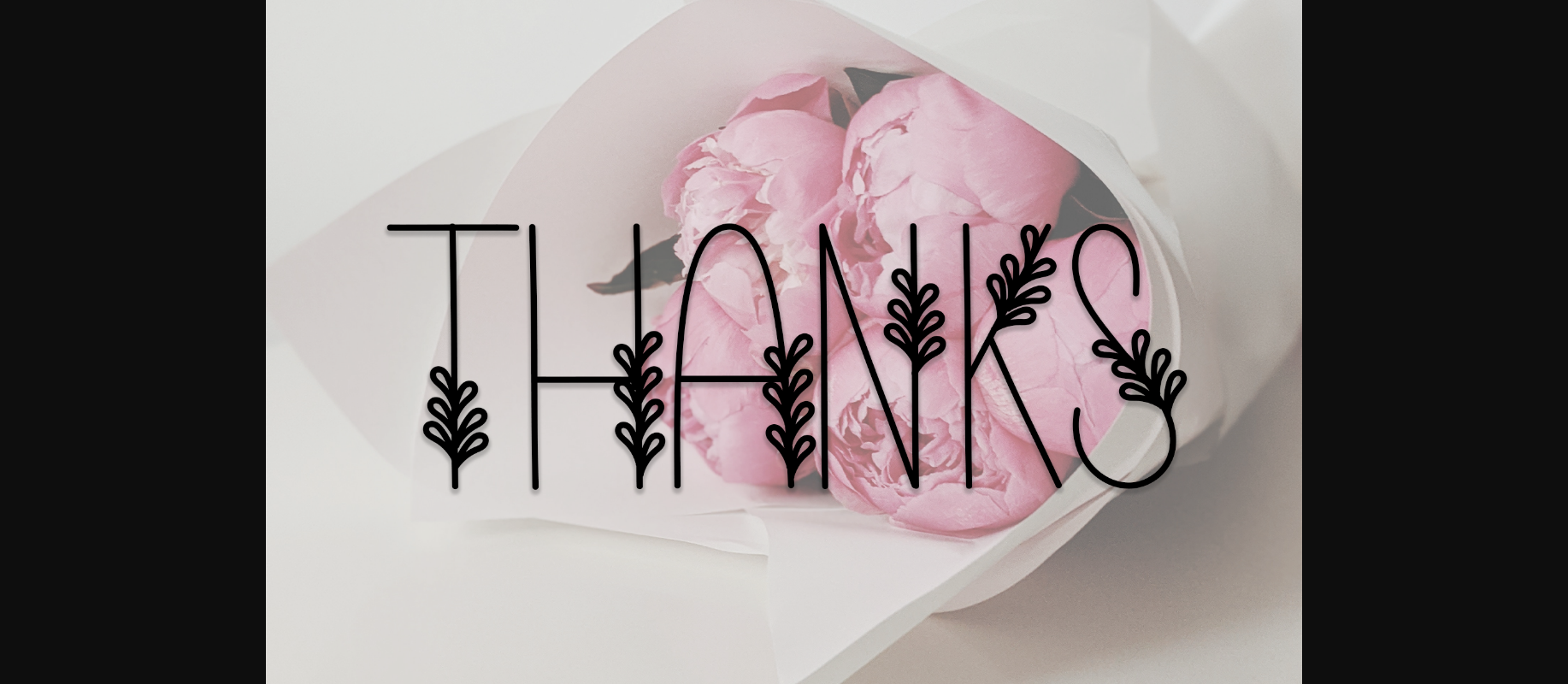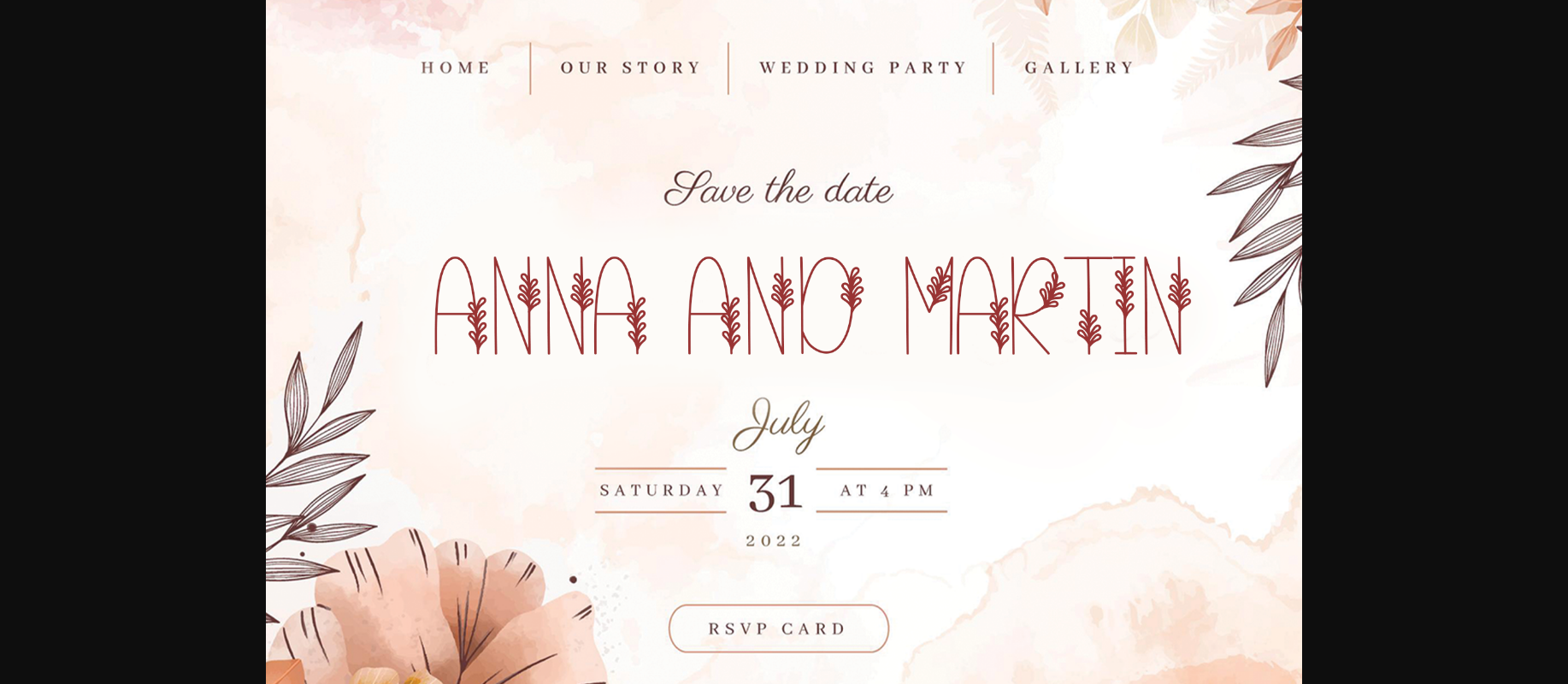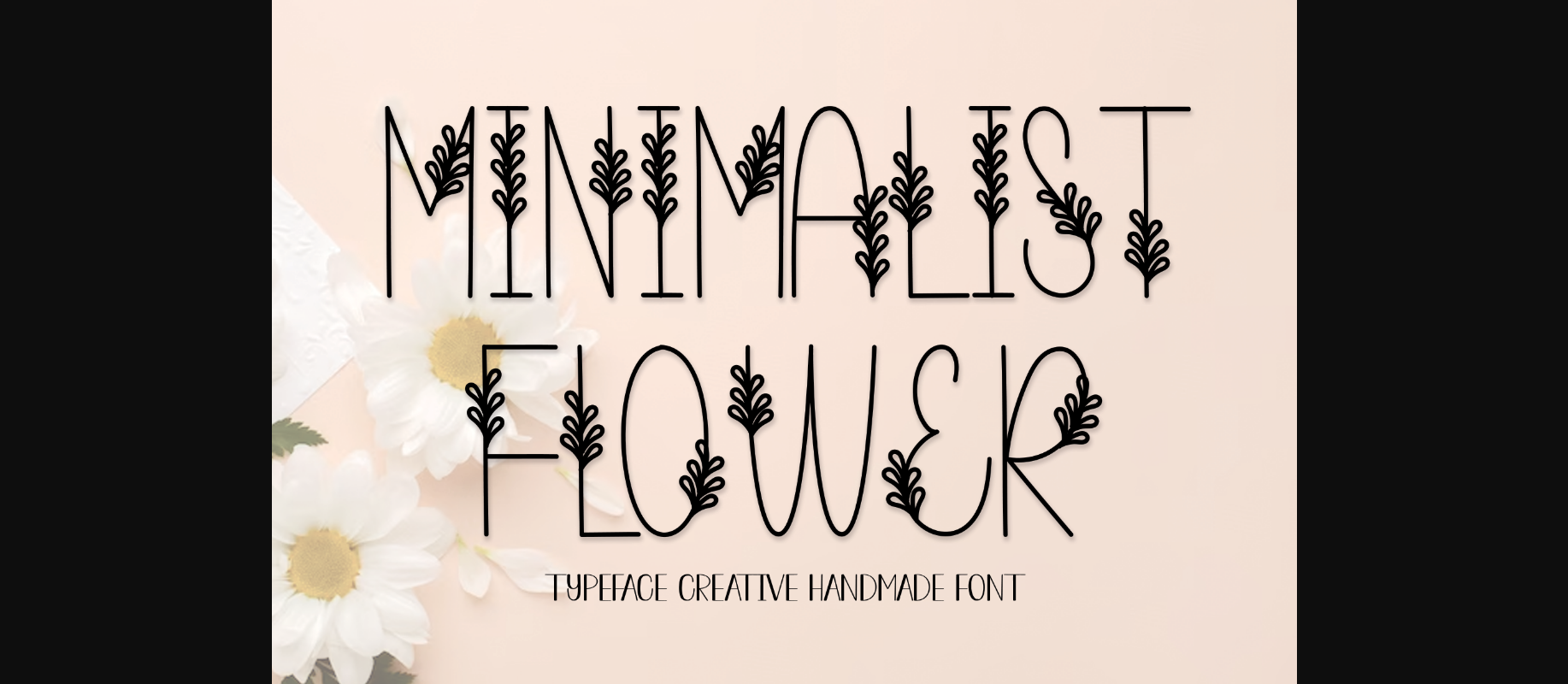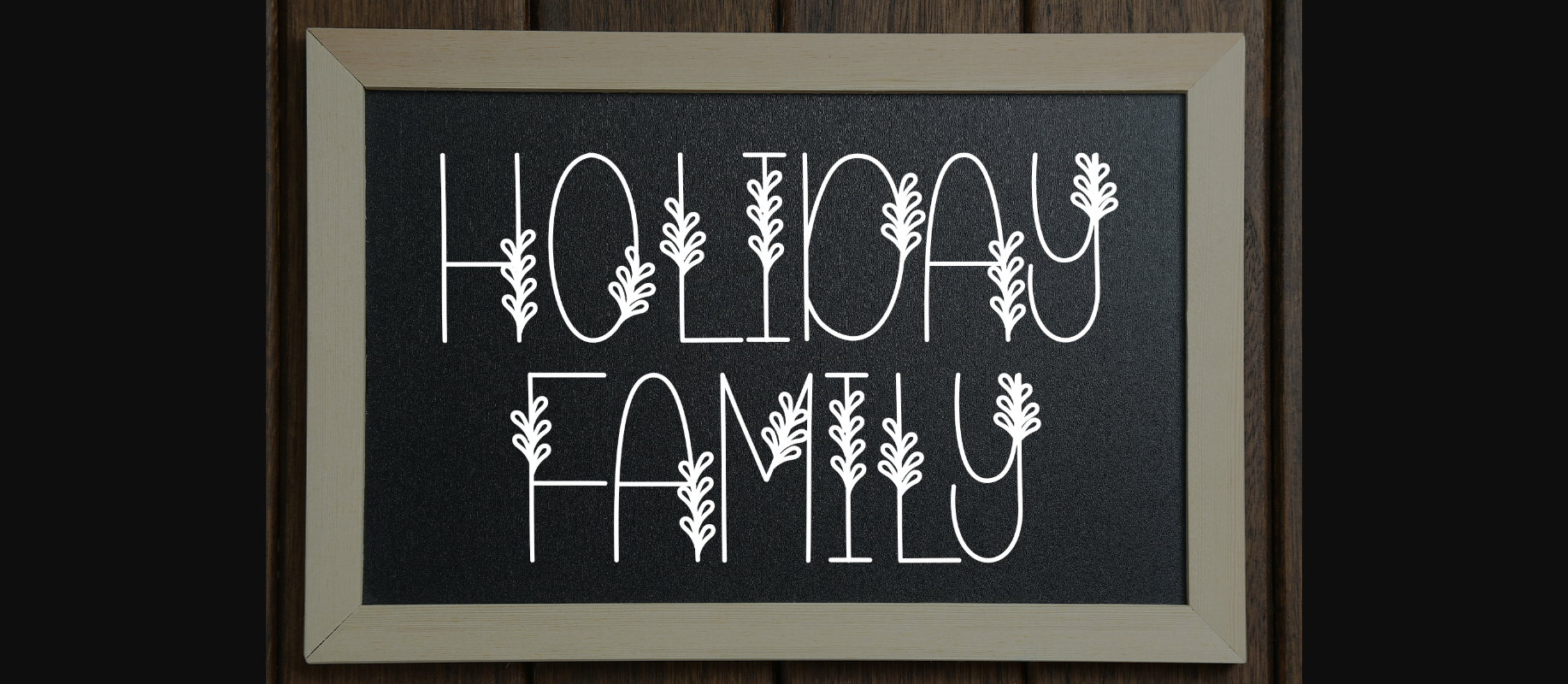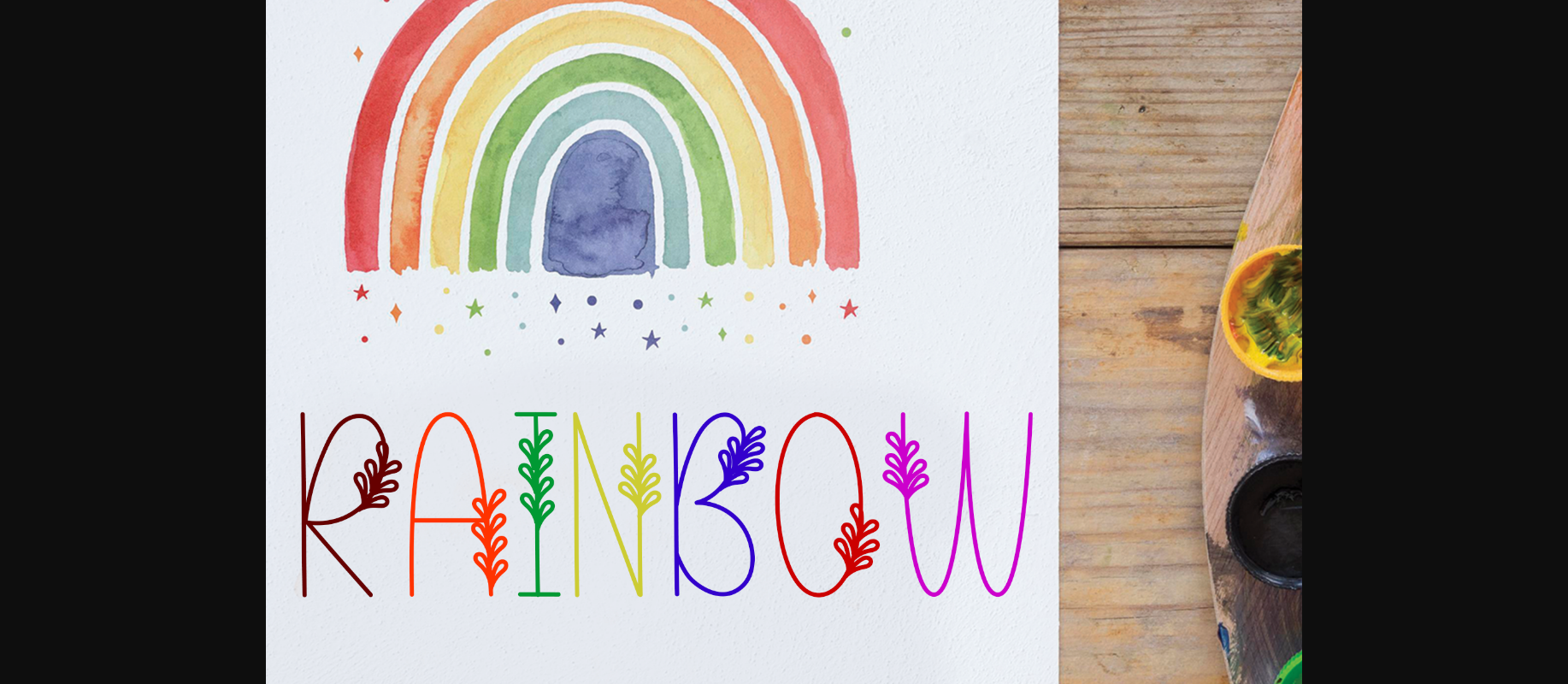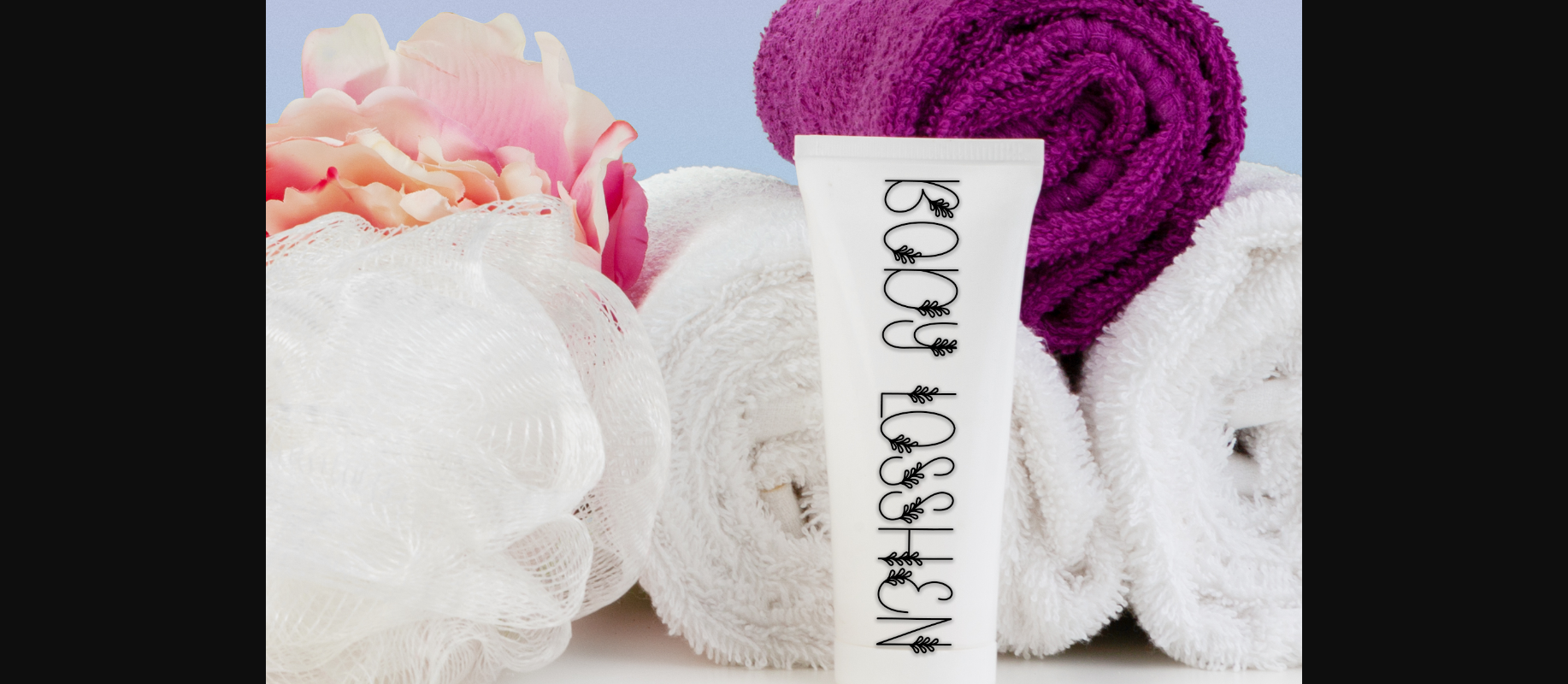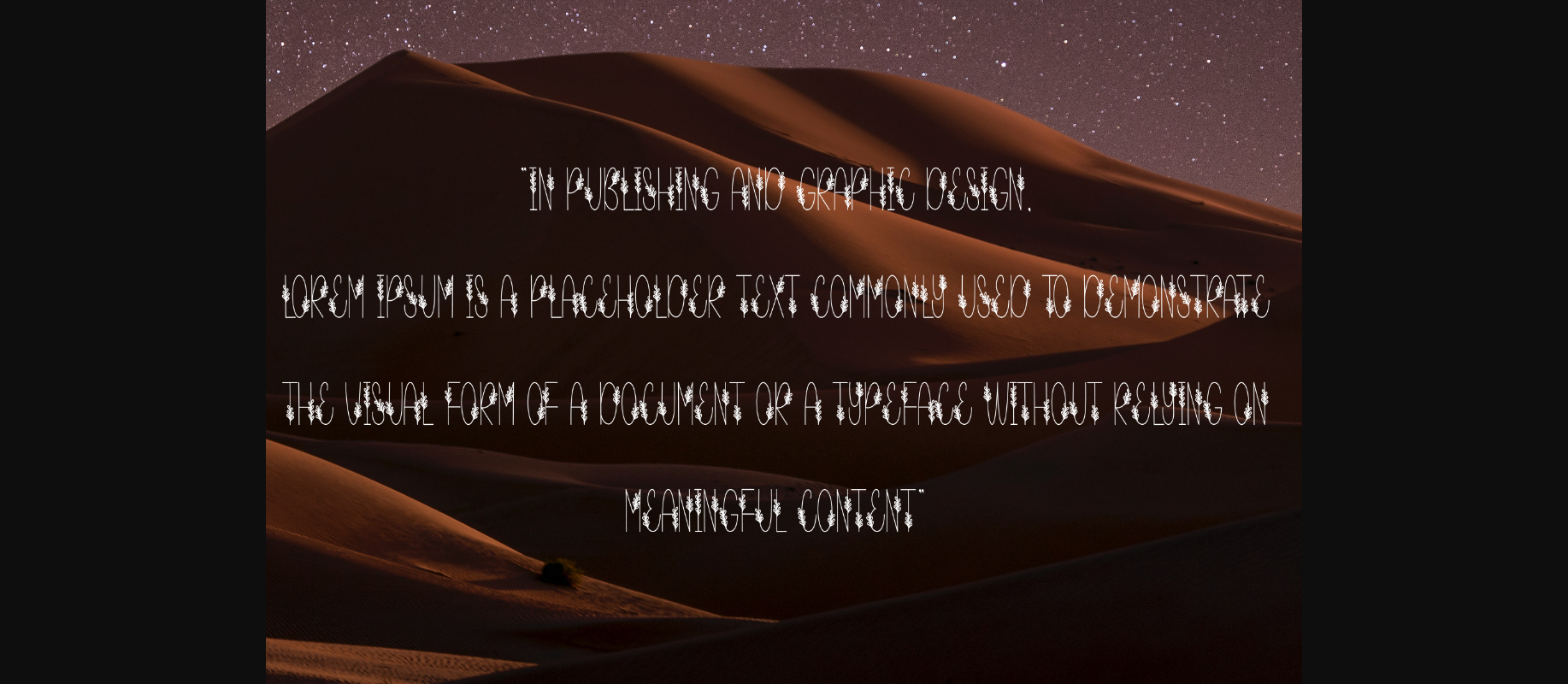
Minimalist Flower Font
About Minimalist Flower Font
Minimalist Flower is a sweet and friendly decorative font. Creative and versatile, this font is ideal for writing wedding invitations, cards, or any other design that might need a fun touch!